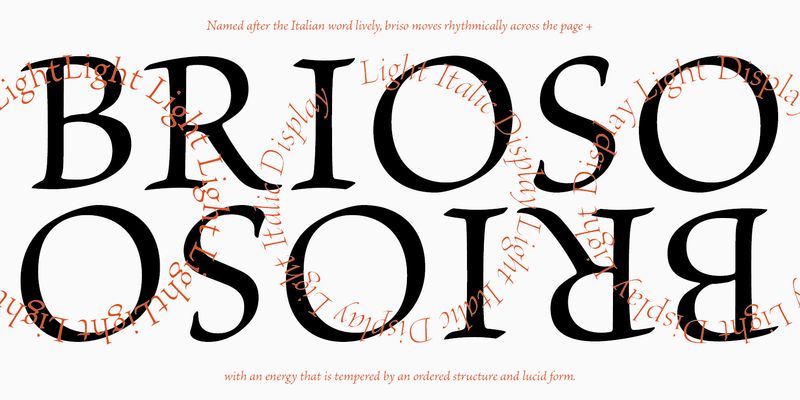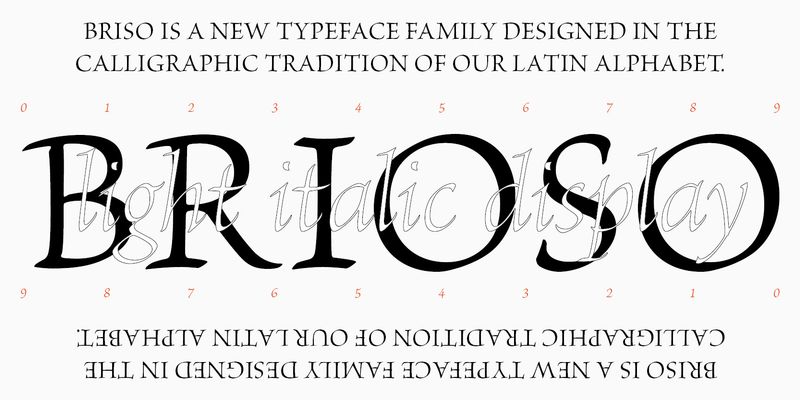
Brioso Pro is a new typeface family designed in the calligraphic tradition of the Latin alphabet. Brioso displays the look of a fi nely-penned roman and italic script, retaining the immediacy of hand lettering while having the scope and functionality of a contemporary composition family. Brioso blends the humanity of written forms with the clarity of digital design, allowing designers to set pages of refined elegance. Designed by Robert Slimbach, this energetic type family is modeled on his formal roman and italic script. In the modern calligrapher’s repertoire of lettering styles, roman script is the hand that most closely mirrors the oldstyle types that we commonly use today; it is also among the most challenging styles to master. Named after the Italian word for lively, Brioso moves rhythmically across the page with an energy that is tempered by an ordered structure and lucidity of form.